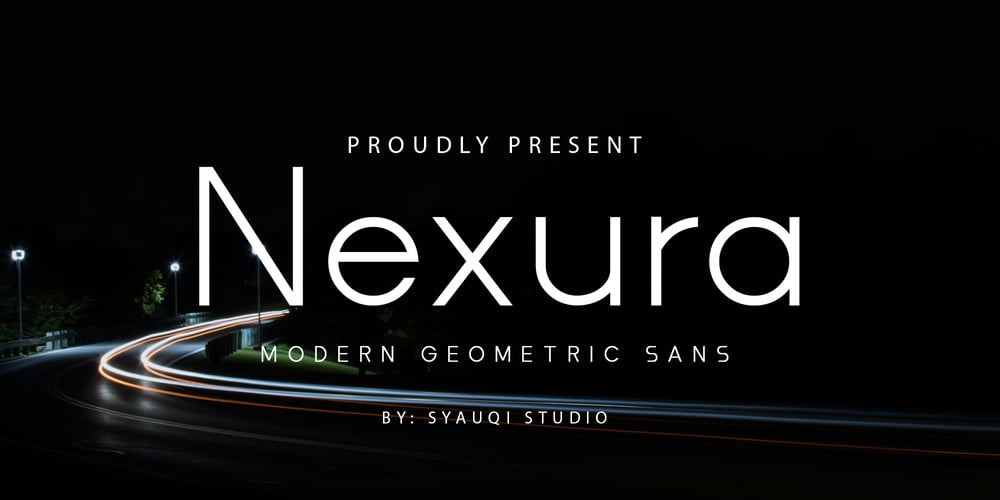
Nexura Font Family was designed by Muhammad Asroful Umam and published by Syauqi Studio. Nexura contains 4 styles and family package options. “Nexura: Where Modern Elegance Meets Timeless Simplicity”Nexura is more than just a font; it’s a testament to the fusion of contemporary sophistication and classic minimalism. Crafted with precision and an eye for detail, Nexura embodies a seamless blend of sleek lines and refined curves, making it the quintessential choice for designers seeking versatility and elegance in their projects.With its clean, sans-serif design, Nexura exudes professionalism while maintaining a distinct personality. Whether used for branding, editorial layouts, or digital interfaces, its clarity and readability ensure a captivating visual experience across various mediums.Nexura stands out not only for its aesthetic appeal but also for its adaptability. From bold headlines that command attention to subtle body text that guides the reader effortlessly, Nexura effortlessly adapts to diverse design needs without compromising on style or legibility.Experience the allure of Nexura as it elevates your designs to new heights, captivating audiences and leaving a lasting impression of sophistication and refinement.Features:- Uppercase & Lowercase- Number & Punctuation- Multilingual SupportThank you, Best regardsSyauqi Studio